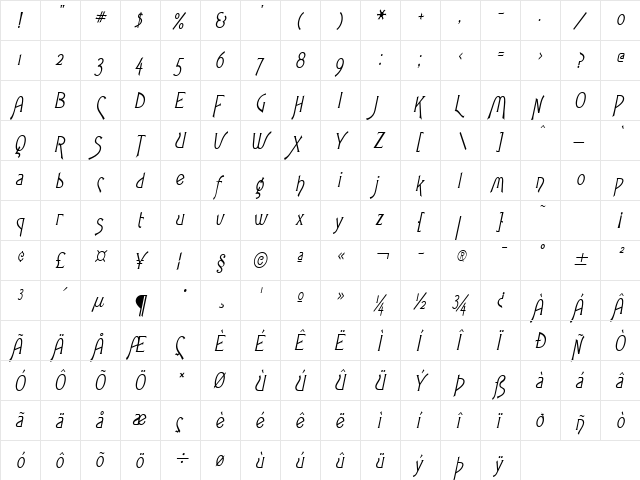
Fletch Condensed Italic Font Preview
Design Context for Fletch Condensed Typeface
Fletch Condensed is a composed and adaptable typeface that performs quietly and consistently across a wide range of design contexts. The slanted form adds forward momentum and visual energy. The condensed width makes it efficient for tight spaces without sacrificing legibility.
Pro Tip: Try Fletch Condensed for annotation and caption copy alongside an upright companion — the contrast in angle creates a dynamic but ordered typographic system.